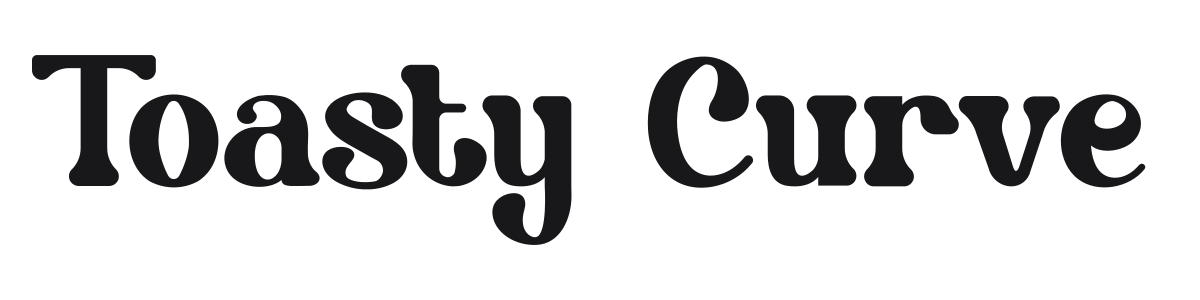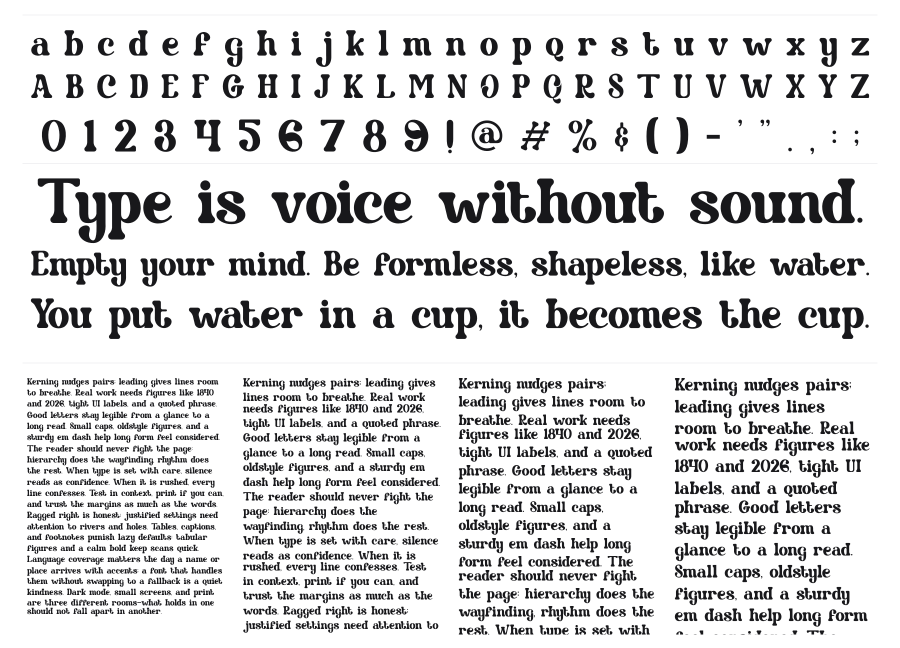
Toasty Curve
Toasty Curve is a heavy retro serif that leans hard into 1970s warmth, with ball terminals, deep bracketed curves, and dramatic stroke contrast. The bold, rounded characters feel expressive without losing legibility at large sizes. A natural choice for packaging, editorial headlines, and branding that wants personality alongside weight.